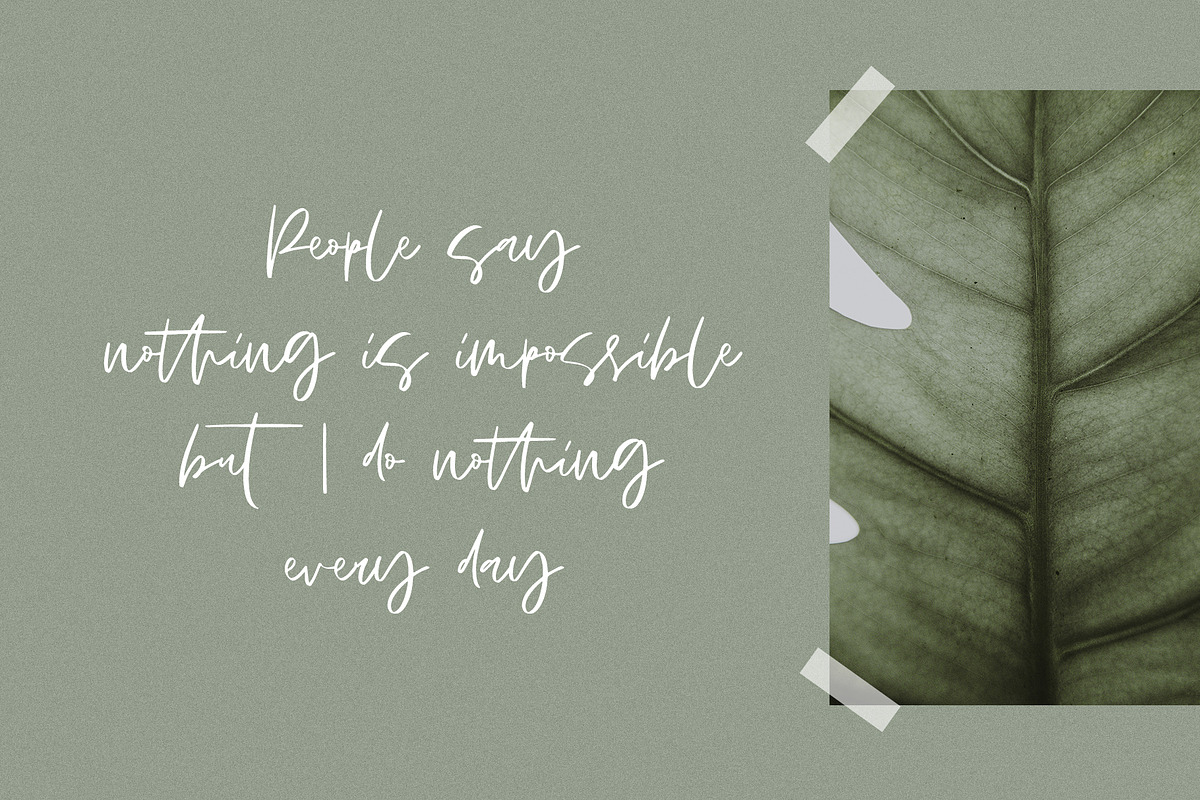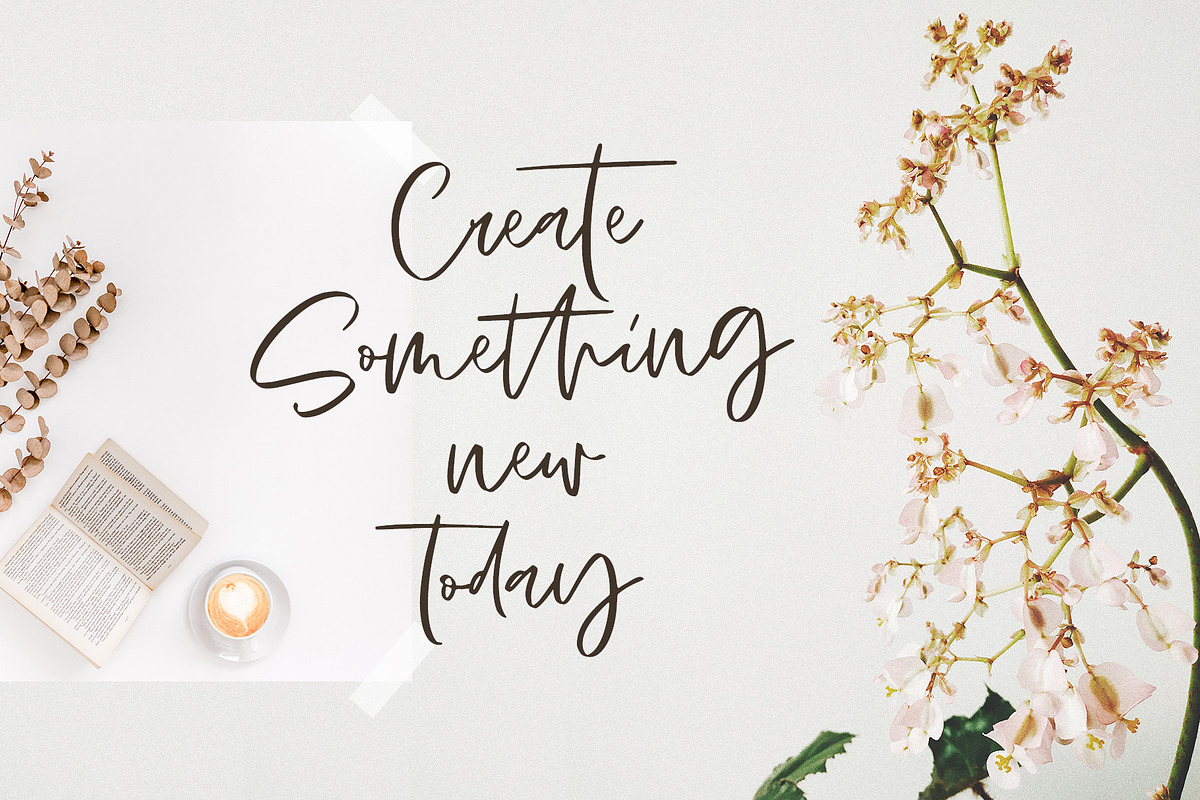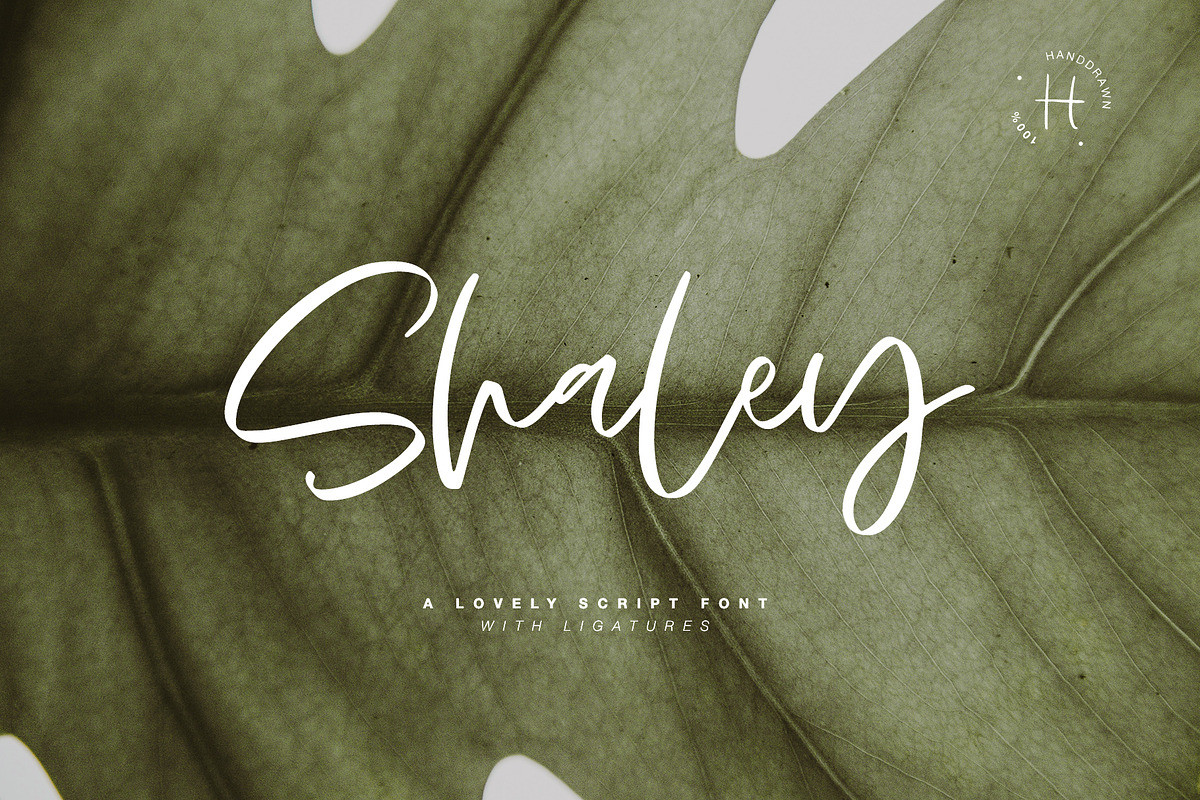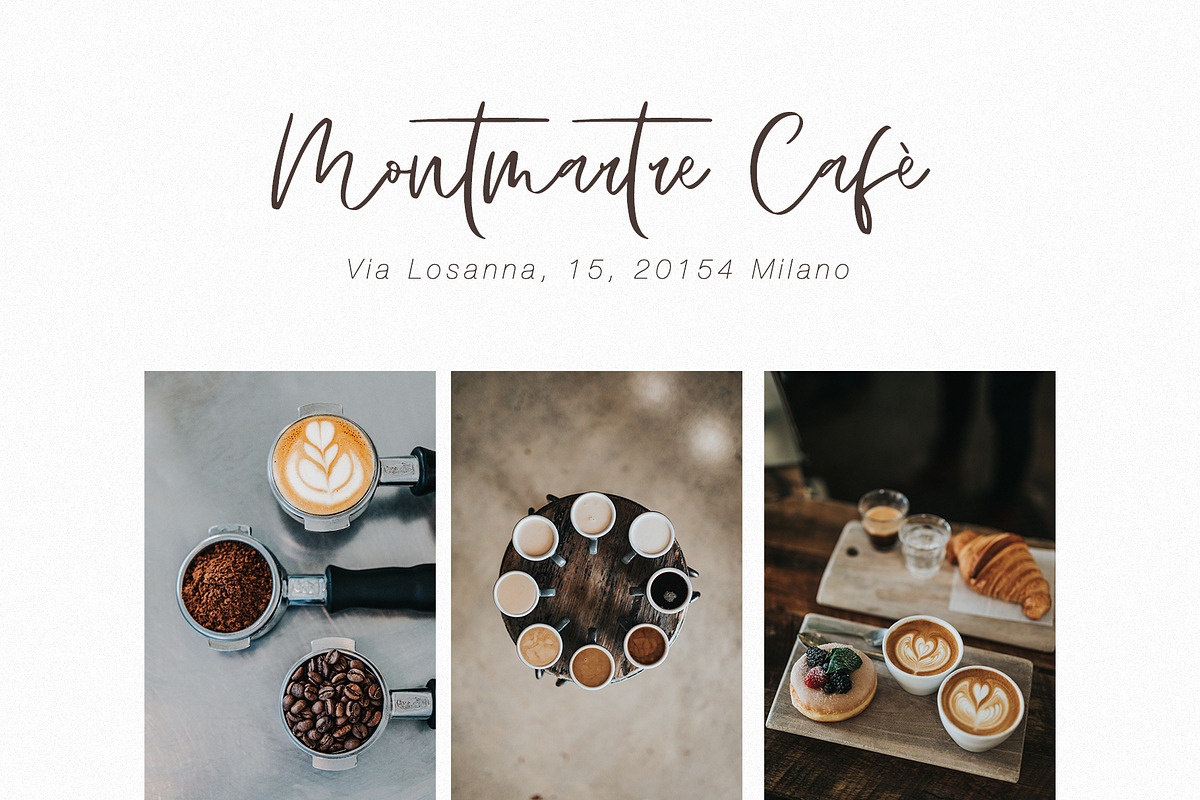
SHALEY SCRIPT
Hello dears! This font is a new Calligraphic Script. Here is that: floating baseline, ligatures and multilingual support :)
Shaley Script will look beautiful on holiday invitations, wedding invites and stationery, logos, and more.